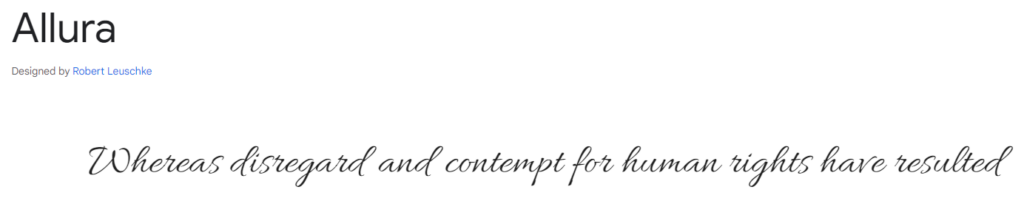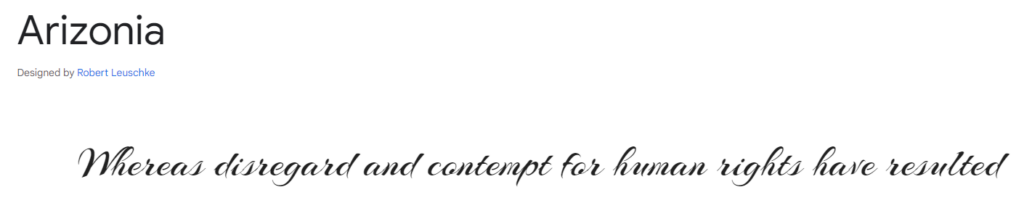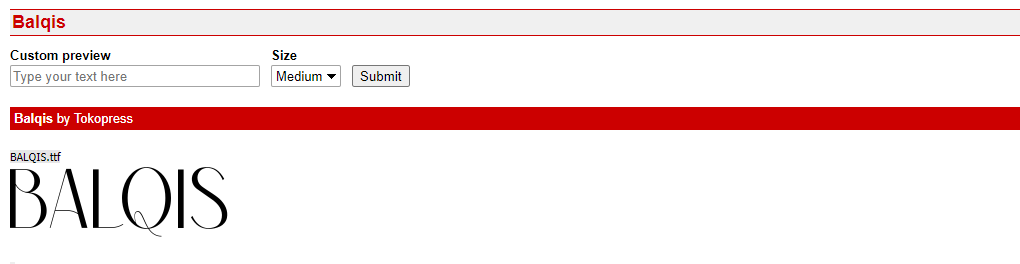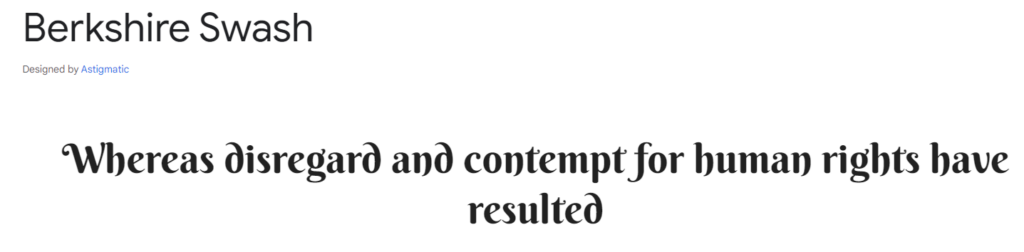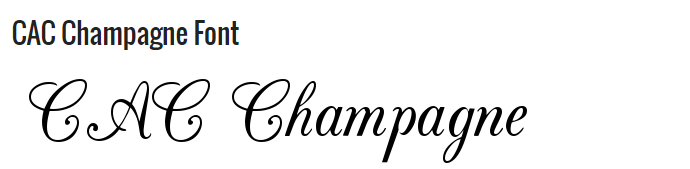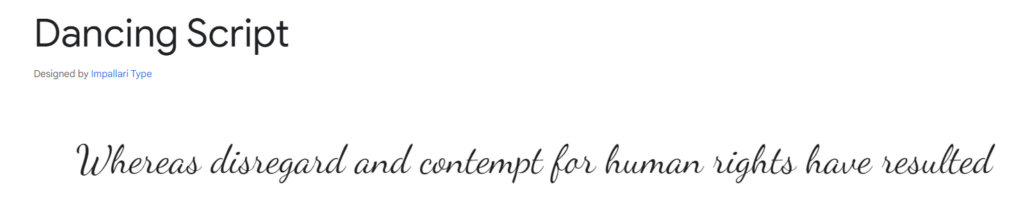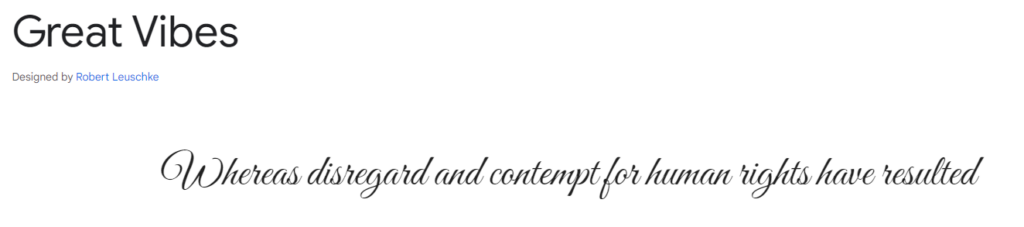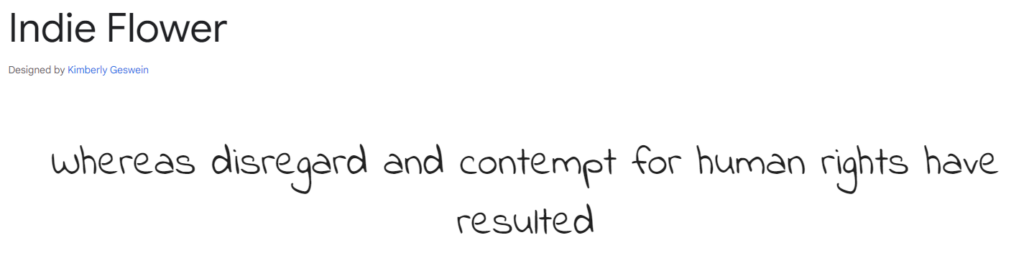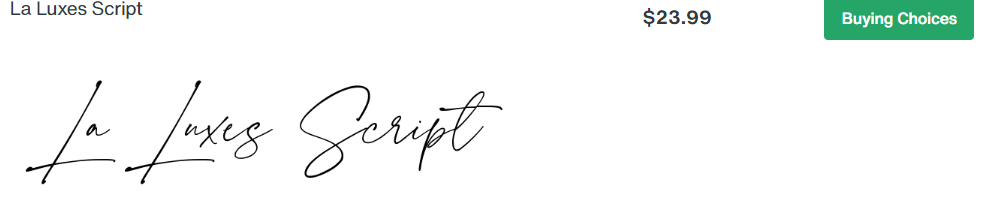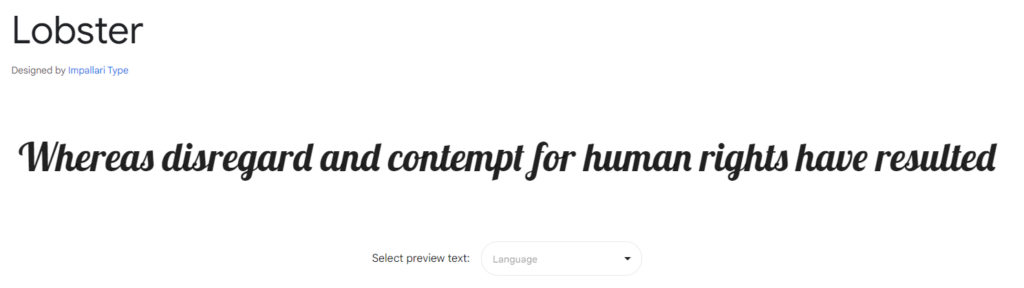
Choosing the right fonts can make or break your design, influencing everything from readability to brand perception. And in this digital age, where sleek, modern typefaces dominate, handwriting fonts offer a refreshing breath of personality and warmth.
But here’s the challenge: finding handwriting fonts that are both visually stunning and optimized for web use can feel like searching for a needle in a haystack. That’s why we’ve curated this comprehensive guide-your one-stop shop for the 32 best handwriting fonts that will elevate your web designs in 2026 and beyond.
Whether you’re a seasoned web designer looking for fresh inspiration or a beginner eager to experiment, this guide has something for everyone.Â
Understanding Handwriting Fonts
Handwriting fonts, also known as script fonts, bring a human touch and a sense of personality to web design. They mimic the fluidity and imperfection of handwriting, adding warmth and charm to otherwise sterile digital interfaces. However, not all handwriting fonts are created equal, and understanding their nuances is crucial for effective use.
Types of Handwriting Fonts
- Script Fonts: These are the most formal type of handwriting fonts, often resembling elegant calligraphy or cursive writing. They evoke a sense of tradition, sophistication, and luxury.
- Cursive Fonts: Similar to script fonts, but typically more casual and flowing. Cursive fonts can add a touch of whimsy or playfulness to your designs.
- Calligraphy Fonts: Inspired by the art of calligraphy, these fonts often feature elaborate flourishes and intricate details. They are perfect for adding a touch of elegance and artistry to your projects.
- Brush Fonts: Created to resemble brushstrokes, these fonts are bold, expressive, and full of energy. They can add a modern, artistic flair to your designs.
- Hand-Lettering Fonts: These fonts mimic the look of hand-drawn letters, often with a quirky or unique style. They are perfect for adding a personal touch and a sense of authenticity to your designs.
Font Psychology: The Emotions Behind the Letters
Each handwriting font carries its own emotional weight and subconscious associations. For example, script fonts often convey elegance and formality, while brush fonts can feel more energetic and youthful. Understanding the psychology behind different handwriting styles can help you choose fonts that align with your brand’s personality and evoke the desired emotions in your audience.
Font Pairing: Creating Harmony in Design
Pairing handwriting fonts with other fonts can be a powerful way to create visual interest and balance. A common approach is to use a handwriting font for headings or accents while using a more neutral font (like a sans-serif) for body text. This combination ensures readability while still adding a touch of personality.
Selecting the Right Handwriting Font
Choosing the perfect handwriting font for your website isn’t just about aesthetics; it’s a strategic decision that can significantly impact your site’s effectiveness. Here’s what you need to consider:
Purpose and Audience: Know Your Goals
Before you dive into the world of gorgeous scripts and curls, take a moment to define your website’s purpose and target audience.
- Brand Personality: What kind of image do you want to project? Is your brand playful, sophisticated, modern, or vintage? The handwriting font you choose should align with your brand’s overall personality.
- Target Demographic: Who are you trying to reach? Different demographics respond to different styles. A youthful, energetic brush script might appeal to a younger audience, while a classic script might resonate with a more mature demographic.
- Website Purpose: Is your website informational, e-commerce-focused, or primarily a blog? The purpose of your site will influence the level of formality and readability required from your chosen font.
Legibility: Striking the Balance
While handwriting fonts are visually appealing, legibility should always be a top priority, especially for body text. A beautiful font is only useful if your visitors can read it. Consider these tips:
- Test at Different Sizes: Ensure your chosen font is legible in various sizes, from headings to small print.
- Contrast is Key: Pair your handwriting font with a high-contrast background to enhance readability.
- Limit Use for Large Blocks of Text: Handwriting fonts are often best used for headings, quotes, or short bursts of text. Use a more legible font for body text.
For Elementor users, the platform’s extensive typography controls make it easy to experiment with different font sizes, line heights, and letter spacing to optimize legibility.
Licensing: Respecting the Rules
Fonts, like any creative work, are subject to copyright laws. Be sure to choose fonts with licenses that allow for web use. Many free fonts are available for personal projects, but commercial use may require a paid license. Premium font foundries often offer web licenses specifically for website usage.